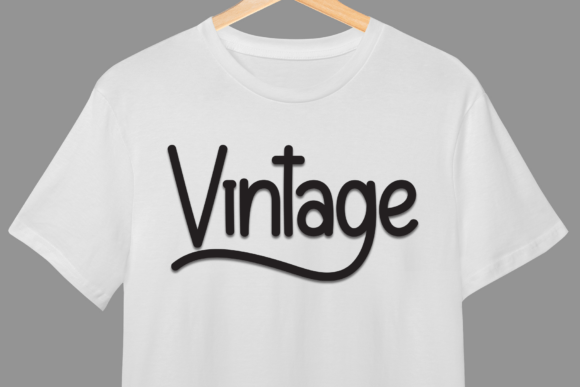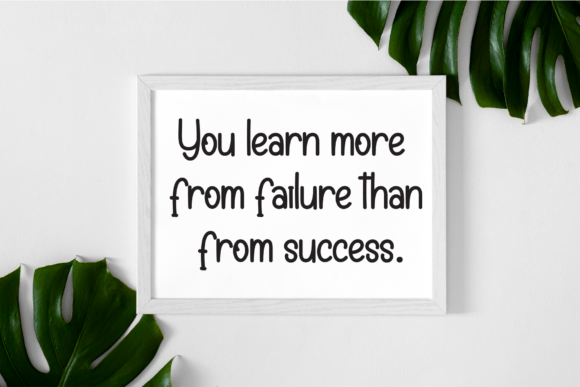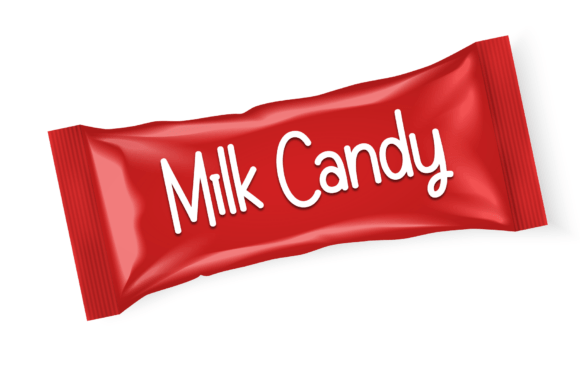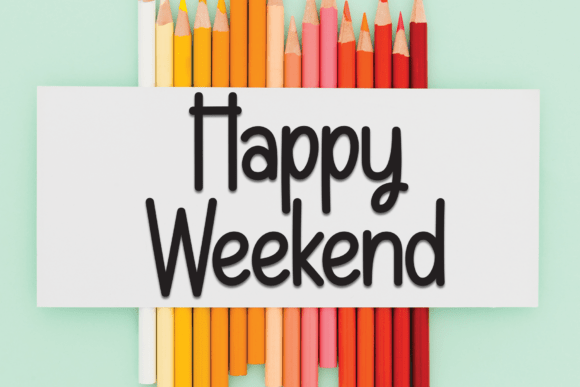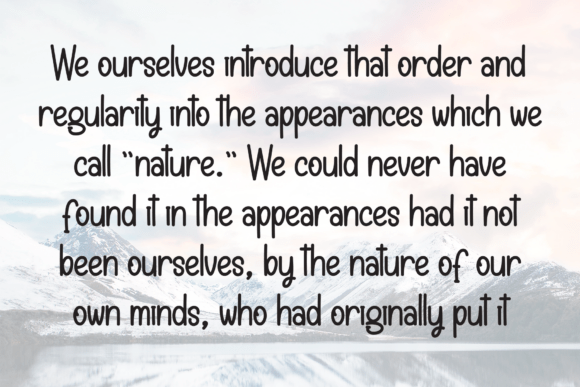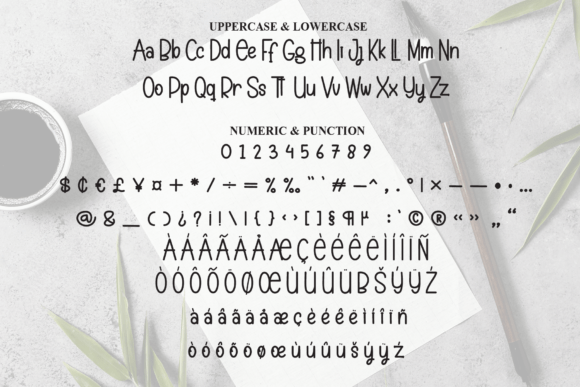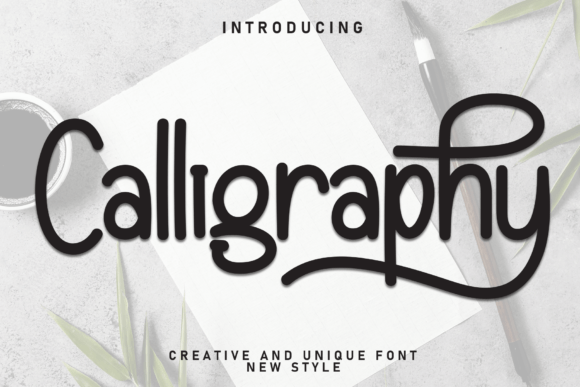
The Warmth of Calligraphy Font: A Designer’s New Best Friend
I still remember the project like it was yesterday. I was working on a branding campaign for a cozy coffee shop, and I needed a font that would convey warmth and approachability. After hours of scrolling through font libraries and trying out different combinations, I stumbled upon Calligraphy Font. It was love at first sight! ✨ The clean structure, balanced letterforms, and inviting style instantly resonated with the project’s vibe. In this article, I’ll share my experience with Calligraphy Font, its features, and how to make the most of it in your designs.
- ✅ Clean and neat display font perfect for branding and headlines
- ✨ Balanced letterforms that offer readability and charm
- 🌟 Approachable style that makes every message feel genuine and inviting
- 🎨 Versatile and suitable for various design projects, from digital to print
While Calligraphy Font is an excellent choice for many projects, there are a few things to keep in mind: ⚠️ It may not be the best fit for very formal or traditional designs, as its approachable style might come across as too casual. Additionally, some users might find the font’s clean structure a bit too uniform, limiting the creative freedom to experiment with different styles.
🤔 Another thing to consider is that, like any font, Calligraphy Font may not be suitable for very small text sizes or low-resolution displays. However, for its intended use cases, it shines brightly.
- Experiment with OpenType features, such as ligatures and stylistic alternates, to add personality to your text
- Explore the font’s glyphs and OpenType features, such as swashes and ornaments, to add creative flair to your designs
- Use the font’s built-in features, like ligatures and stylistic alternates, to enhance your text
The Story Behind Calligraphy Font
Calligraphy Font was designed with the goal of creating a clean, approachable, and versatile font that would bring warmth and clarity to various design projects. The designer aimed to craft a font that would feel both genuine and inviting, making it perfect for branding, headlines, and everyday designs.
| Font Name | Calligraphy Font |
| What is Calligraphy Font best suited for? | Calligraphy Font is ideal for branding, headlines, and everyday designs where a clean, approachable, and inviting style is desired. |
| Does Calligraphy Font support OpenType features? | Yes, Calligraphy Font supports OpenType features, including ligatures, stylistic alternates, and glyphs. |
| Is Calligraphy Font available in different weights or styles? | Currently, Calligraphy Font is available in a single weight. However, the clean structure and balanced letterforms make it versatile enough to work well in various design contexts. |